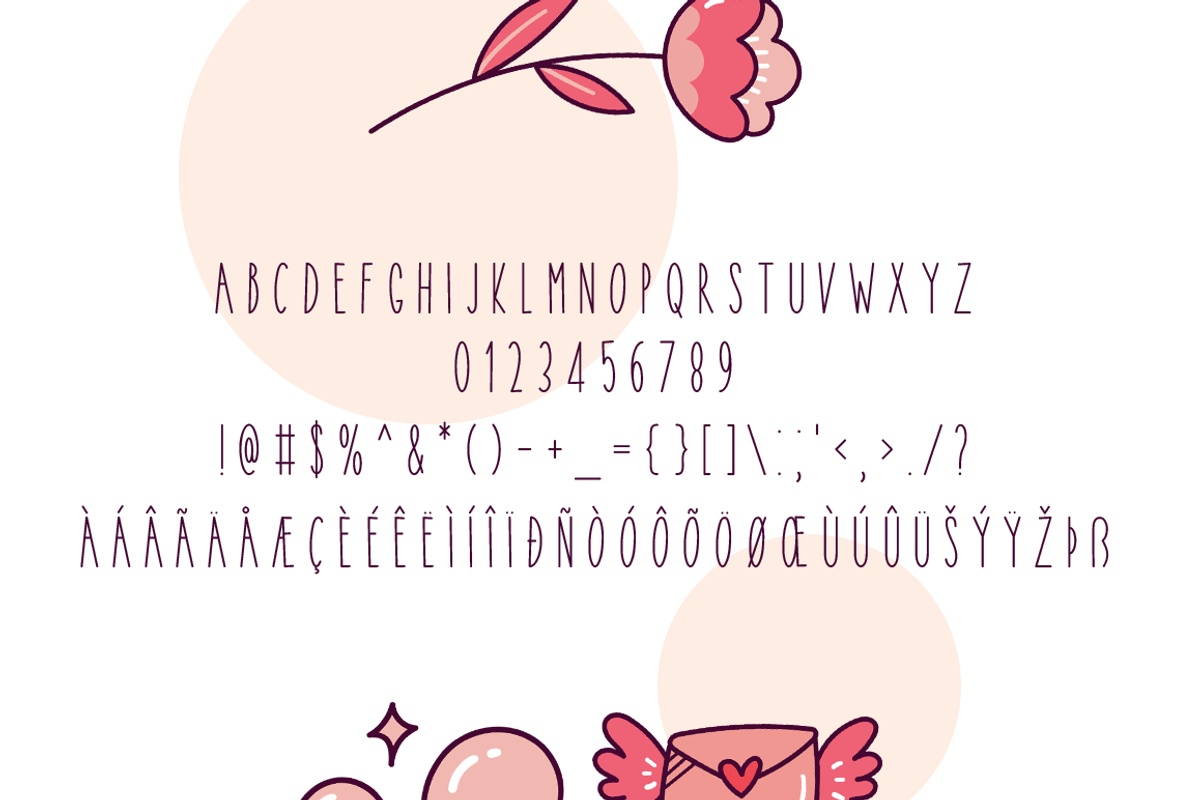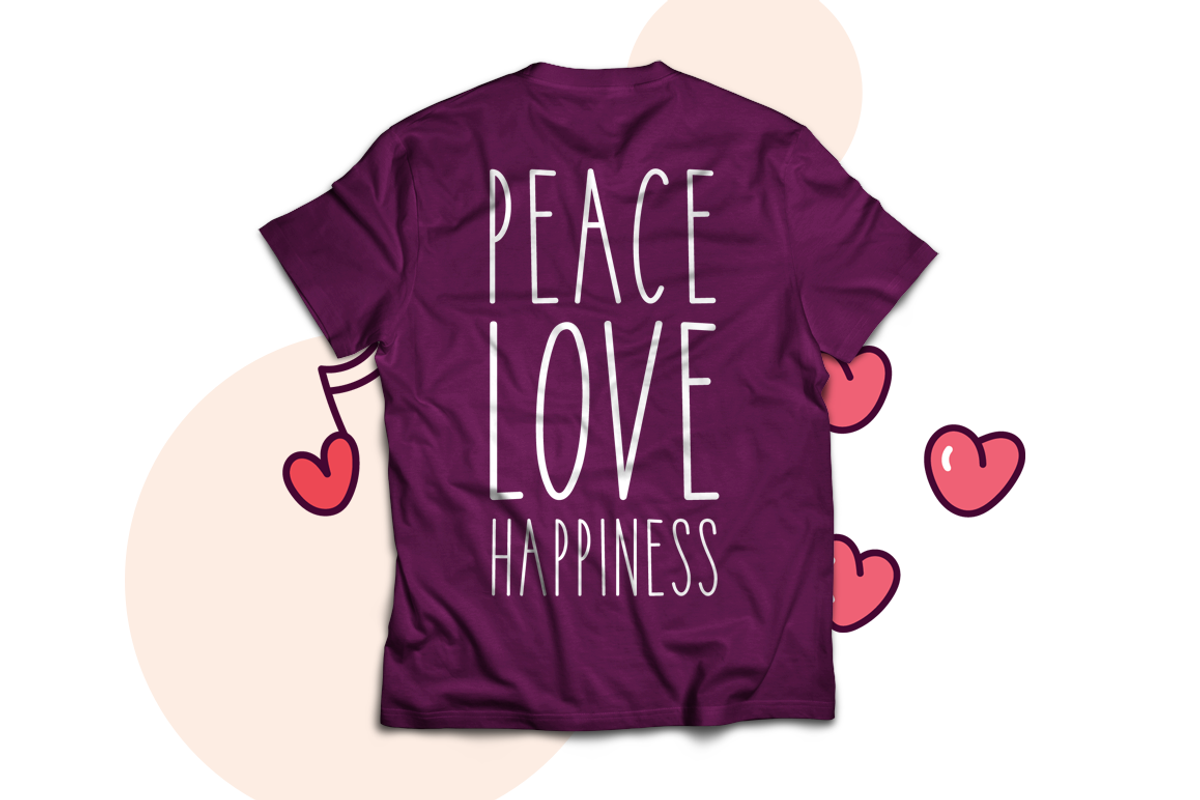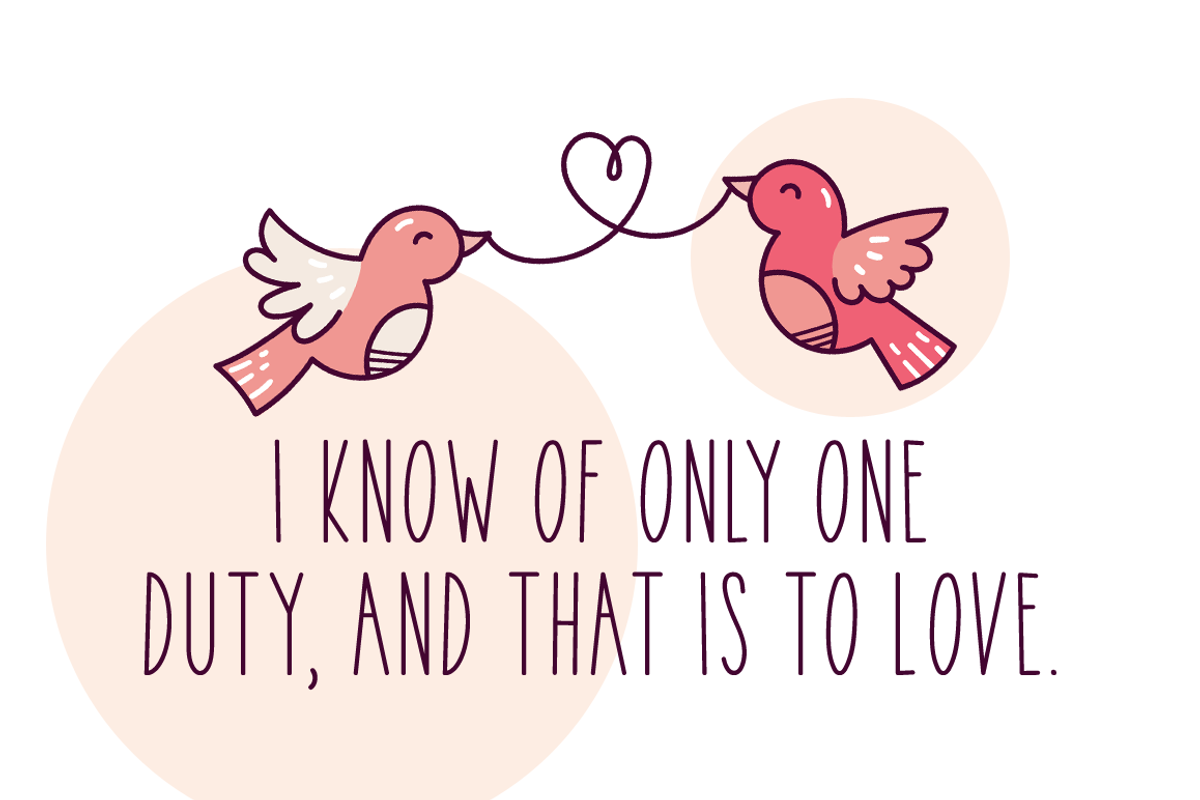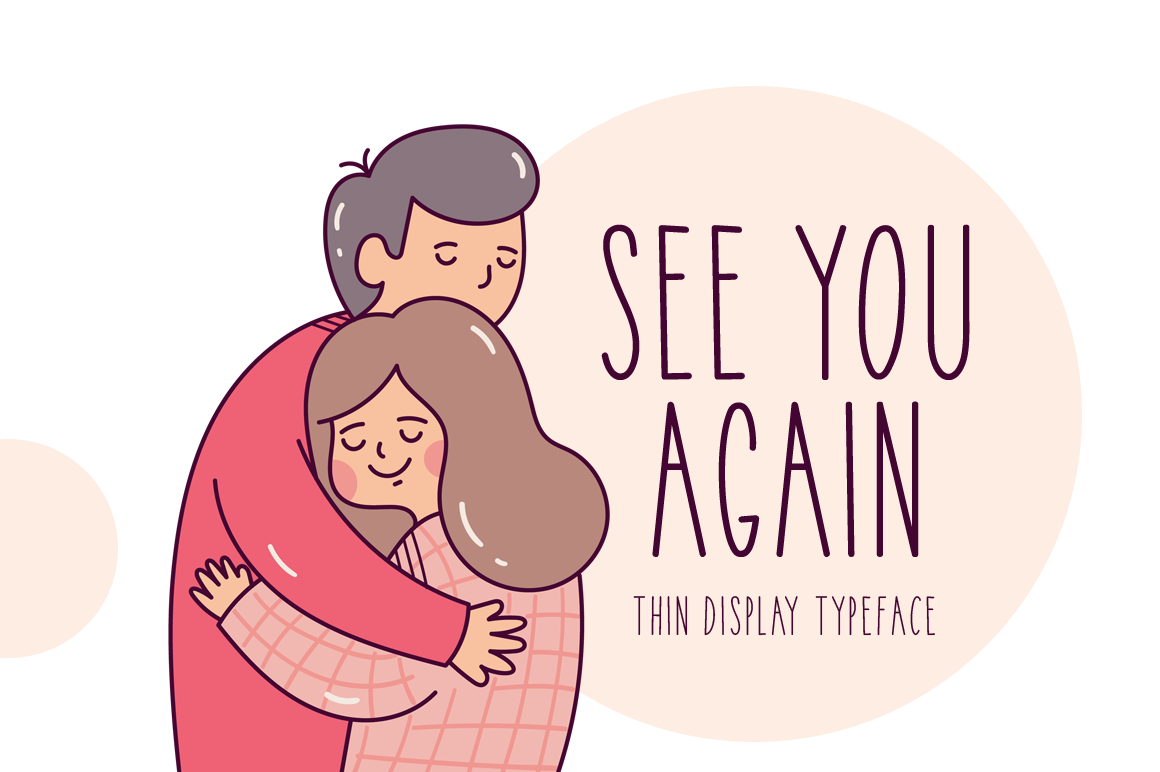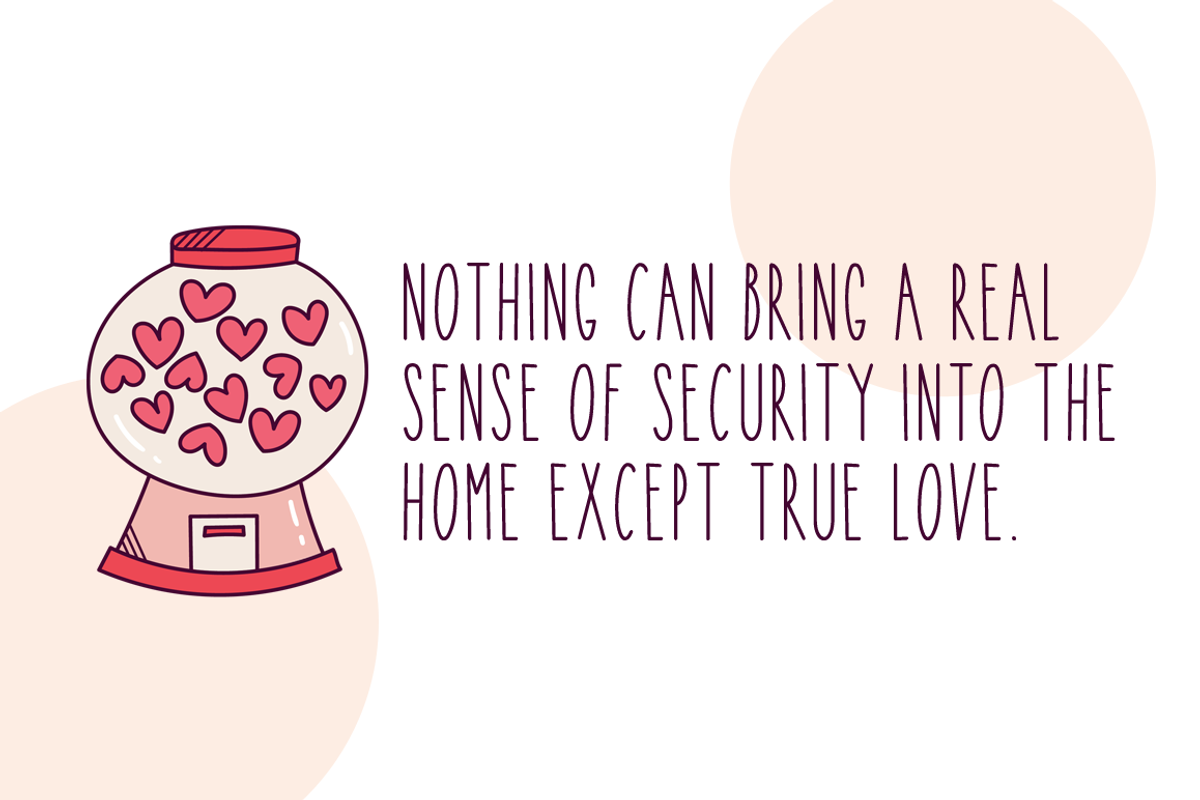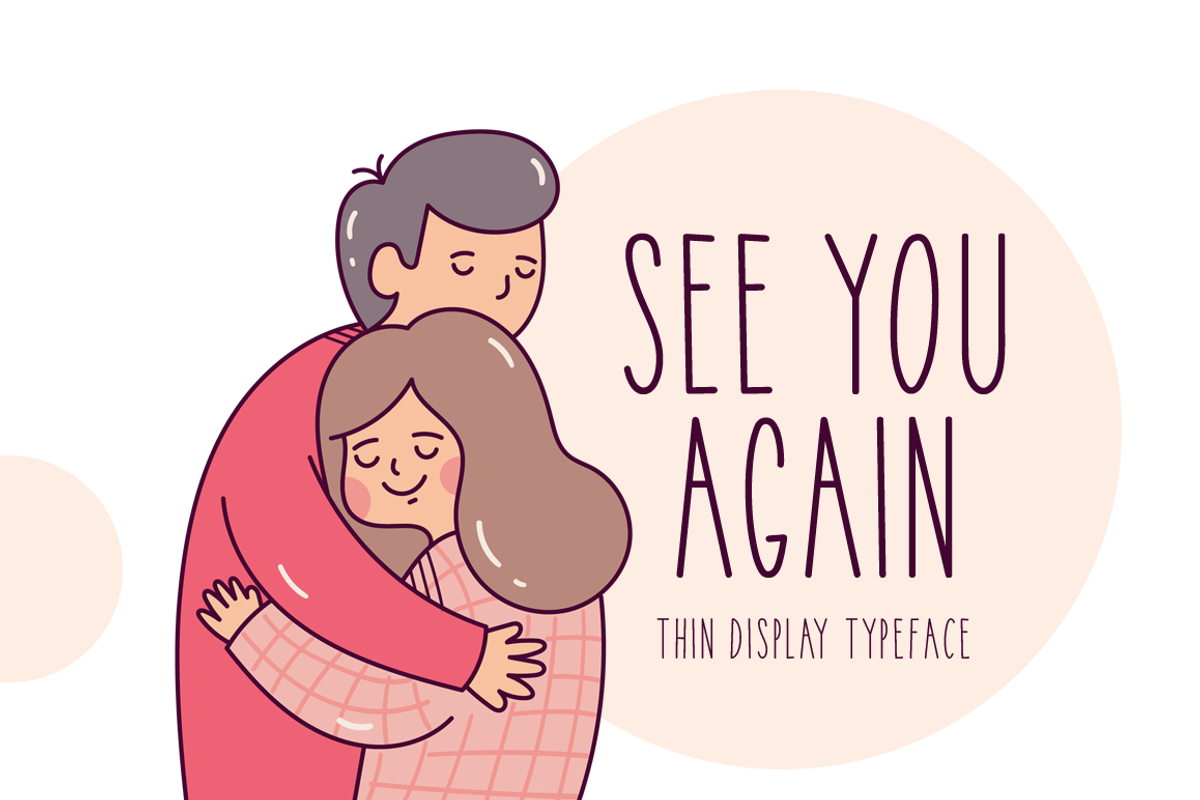
See You Again Typeface
Introducing See You Again!
See You Again is a brand new and thin lettered display font. See You Again is perfectly suited for stationery, logos, t-shirt, paper, print design, website header, photo frame, flyer, music cover, poster, image slider, and much more.
Includes a range of multilingual support